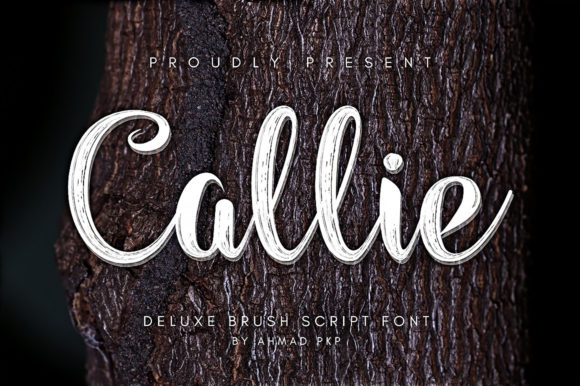
Embrace the allure of Callie, a script font that dances with grace upon your creations. Allow its enchanting curves and delicate swashes to captivate your audience, leaving an unforgettable impression.
Imagine your wedding invitations adorned with Callie's ethereal script, promising an enchanting celebration filled with timeless elegance. Its flowing lines evoke a sense of romance and intimacy, setting the perfect tone for your special day.
Callie's versatility extends far beyond weddings, lending its charm to business cards, greeting cards, and social media posts alike. Whether you seek to convey professionalism or a touch of whimsy, this font will effortlessly elevate your designs.
Its meticulous crafting ensures impeccable quality, with characters and kerning perfectly aligned for visual harmony. Unleash your creativity with ease, knowing that Callie will flawlessly complement your every project.
With PUA encoding, accessing Callie's captivating glyphs and ligatures is a breeze. Experiment with enchanting swashes and intricate details to add a touch of magic to your designs.
Discover the transformative power of Callie font today. Embrace its enchanting beauty and watch your creations blossom into masterpieces that leave a lasting impression.